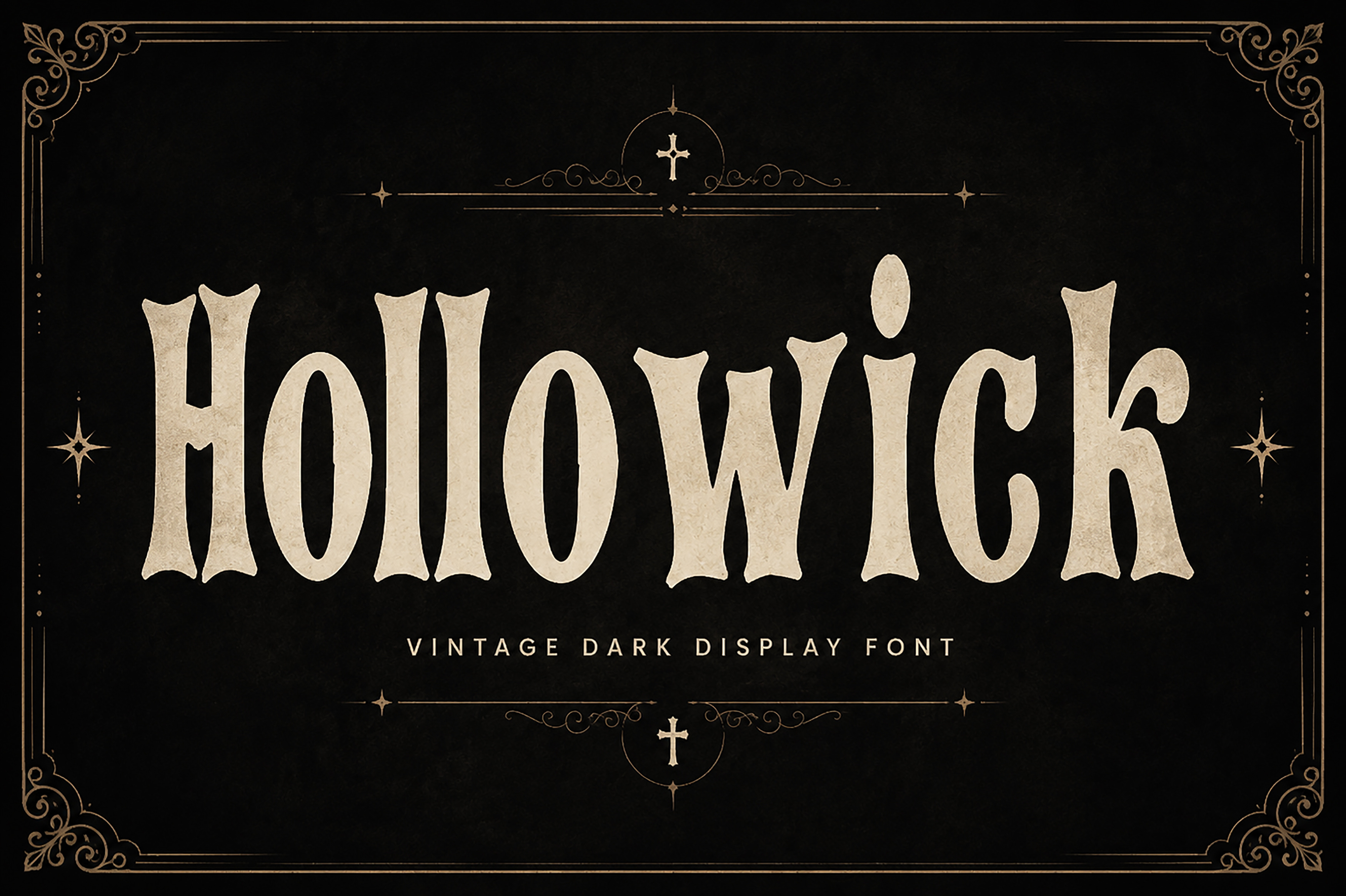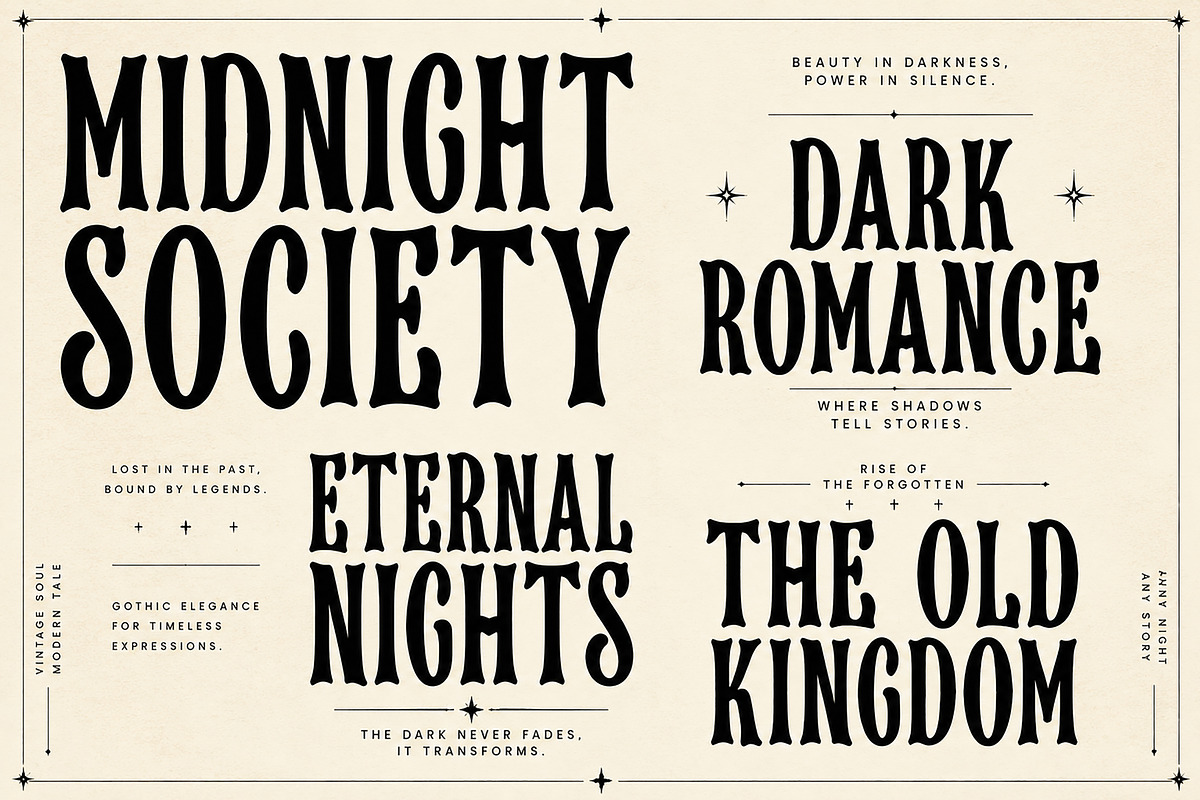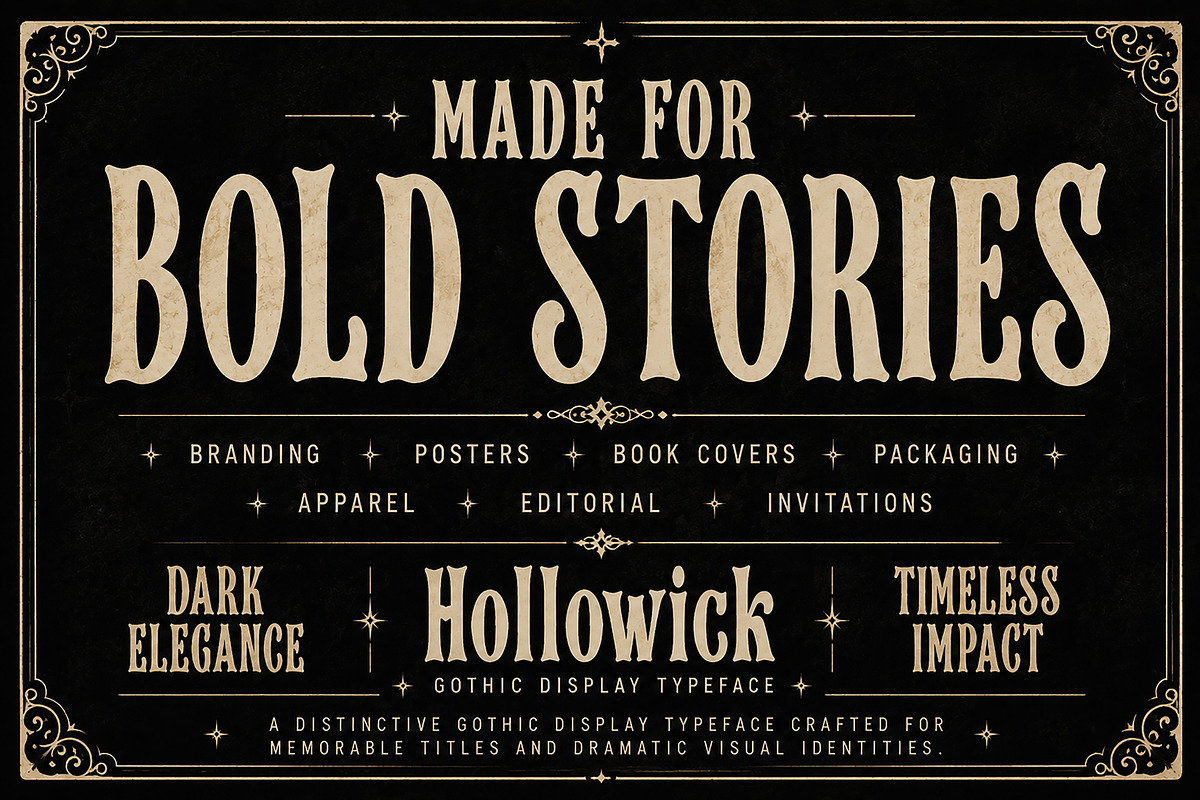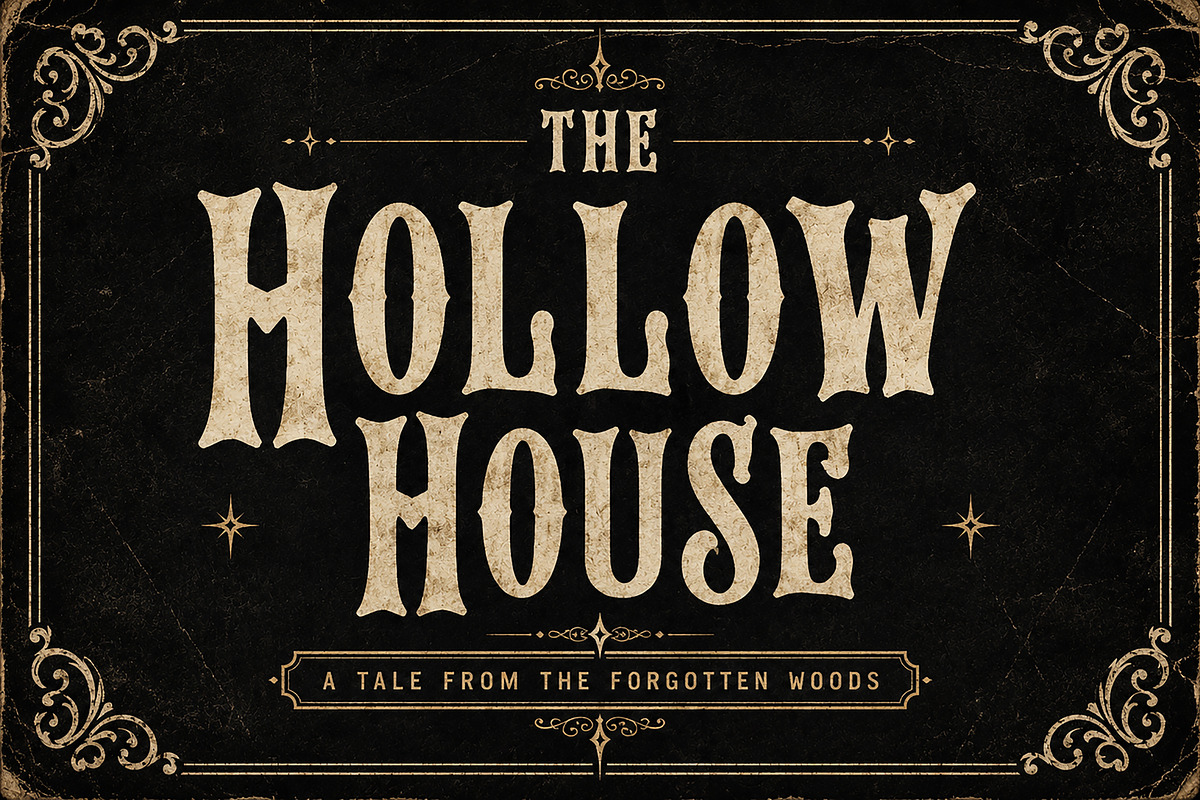
Hollowick – Vintage Display Font
Hollowick – Vintage Dark Display Font
Hollowick is a bold vintage dark display font inspired by gothic lettering, antique typography, medieval aesthetics, and classic horror themes. Its tall, dramatic letterforms with subtly irregular edges create an authentic handcrafted appearance, making it perfect for designs that need a mysterious, timeless, and atmospheric feel.
Whether you're creating Halloween branding, horror movie posters, gothic logos, book covers, apparel, album artwork, vintage packaging, or dark editorial layouts, Hollowick delivers a striking visual impact while remaining highly readable.
Designed for designers, crafters, and creative professionals, this font is ideal for projects that require a bold statement with a vintage gothic character.